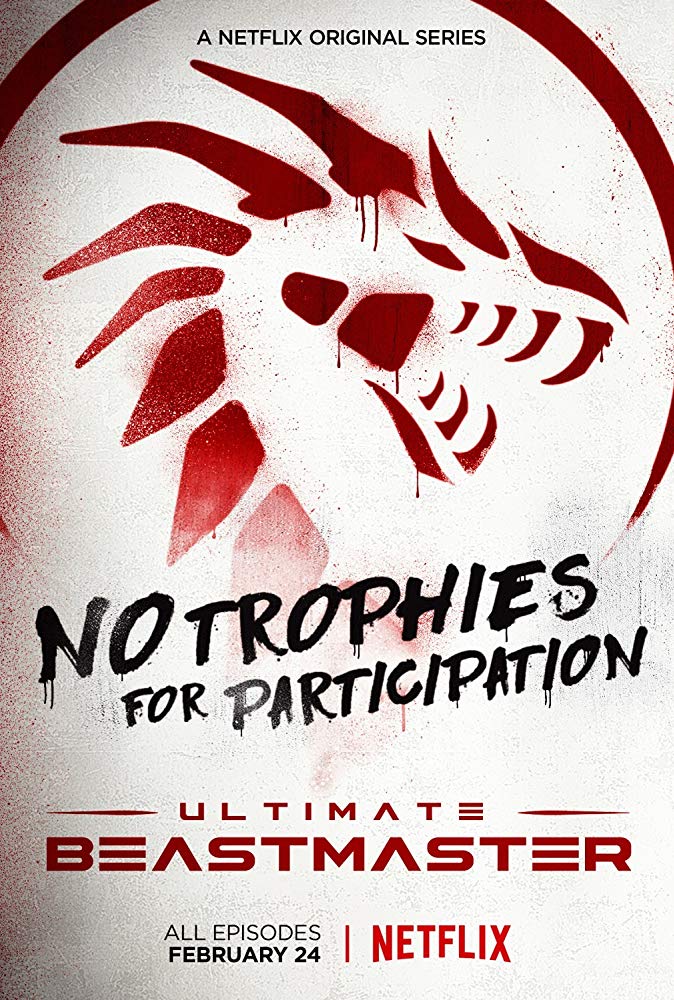
Ultimate Beastmaster Font
Fonts in UseUltimate Beastmaster is a competitive reality TV show in which contestants from different countries compete against each other by completing physically demanding obstacle courses known as "The Beast". The show is produced by Sylvester Stallone and premiered on Netflix in 2017.
The reality show's logo features a free font called Astera created by Nick Polyarush. Meanwhile, the brush script font utilized in the poster bears resemblance to Flagellum Dei designed by Hanoded.